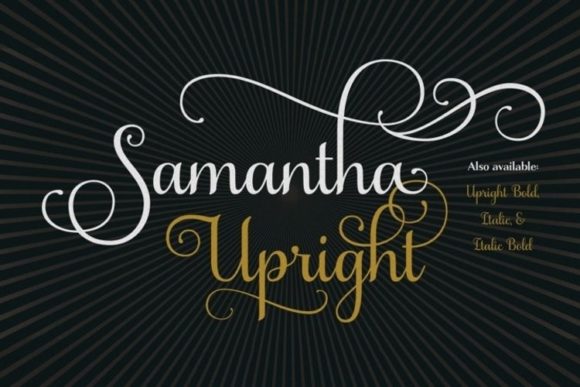
Welcome to the world of Samantha Upright Script Font! If you’re looking for a font that exudes optimism, discipline, and energy, then look no further than Samantha. Created by Laura Worthington, Samantha is a script font family that takes inspiration from pointed-pen lettering, giving it a unique and charming personality.
With slightly condensed characters and a measured rhythm, Samantha is available in upright or italic variants, each with regular and bold weights. But what truly sets Samantha apart from other script fonts are the over 1100 alternates and swash characters that vary in size and complexity. These alternates and swash characters can take your typography game to the next level and add a touch of personality and fun to your designs.
Samantha’s versatility makes it perfect for any occasion. It’s great for short blocks of text and can also be used at display sizes to make a statement. Whether you’re designing invitations, posters, or branding materials, Samantha’s bright and cheerful energy will shine through and grab the attention of your audience.
But that’s not all. Samantha also includes 60 ornaments and 45 catchwords, lining numerals, old-style numerals, swashed figures, and even swash numerals and ordinals! These extras make it perfect for special occasions like weddings and parties.
With Samantha Upright PRO, you get access to an impressive 2,715 glyphs, including a standard character set, swash variations, alternate letterforms, discretionary ligatures, old-style numerals, swash numerals, and ordinals. These features, combined with its charming personality and versatility, make Samantha Upright PRO the perfect font for any design project.